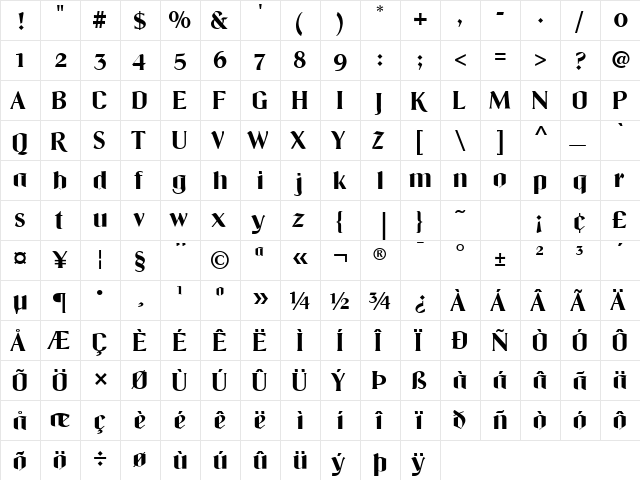
Airam LT Std Regular
| Foundry | Linotype Library GmbH |
| Designer | Maria Martina Schmitt |
Design Context for Airam LT Std Typeface
Airam LT Std is a composed and adaptable typeface that performs quietly and consistently across a wide range of design contexts. Its slender proportions lend an understated elegance to any composition.